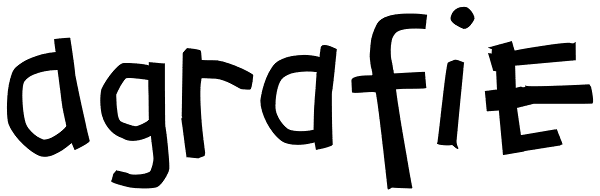
Agrafie
This typeface was developed by Roland John Goulsbra in 1995. Almost like the printing of a child, the irregular forms of Agrafie make a unique impression.